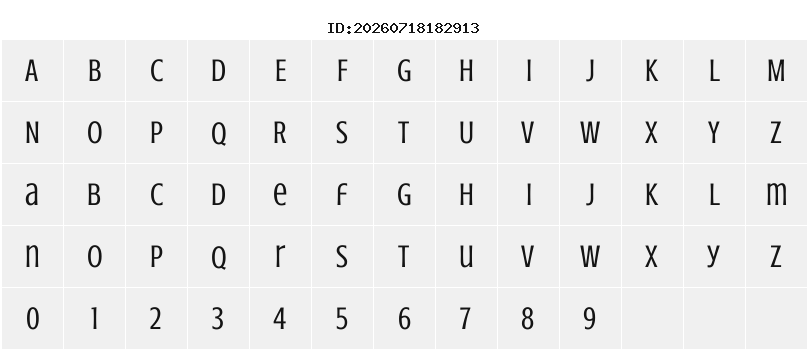
• Font Name: Crushed
• Full Font Name: Crushed
• Designer: Astigmatic (AOETI)
• Manufacturer: Astigmatic (AOETI)
About Crushed.ttf
Crushed.ttf is a modern, elegant sans-serif font designed for ultimate readability and visual harmony. Perfect for branding, headlines, web design, and print materials.